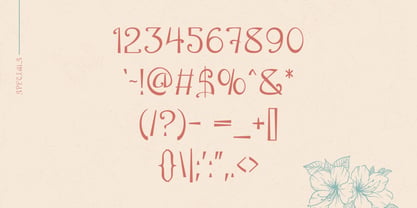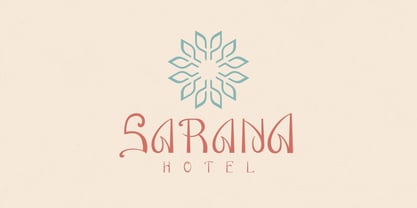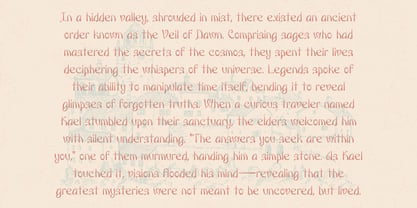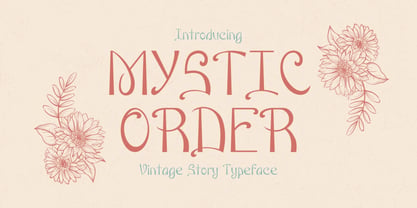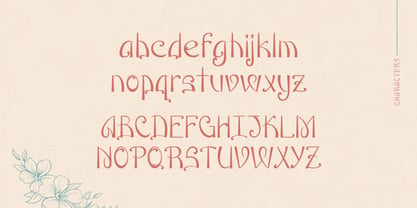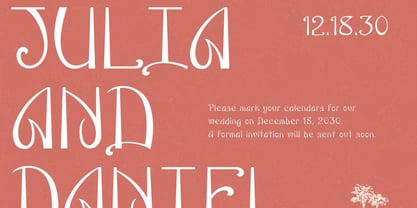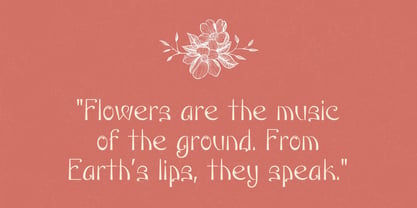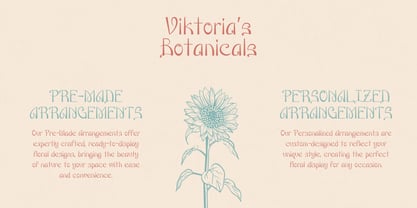
Mystic Order
The Mystic Order Font Family was designed by Igor Ovsyannykov and published by Hipfonts. Mystic Order contains 1 styles. More about this family
tep into a world of mystery and enchantment with Mystic Order, a captivating antique calligraphy typeface that evokes the timeless beauty of handwritten manuscripts and ancient texts. Perfect for novels, stories, and old English-inspired projects, this font weaves an aura of sophistication and intrigue.
Whether you're designing logos, wedding invitations, or packaging, Mystic Order brings an elegant, vintage charm that transforms any project into a work of art. Its flowing strokes and intricate details embody the spirit of a bygone era, making it an essential addition to any designer’s toolkit. Unveil the magic within each letter and elevate your designs to an enchanting level with Mystic Order.